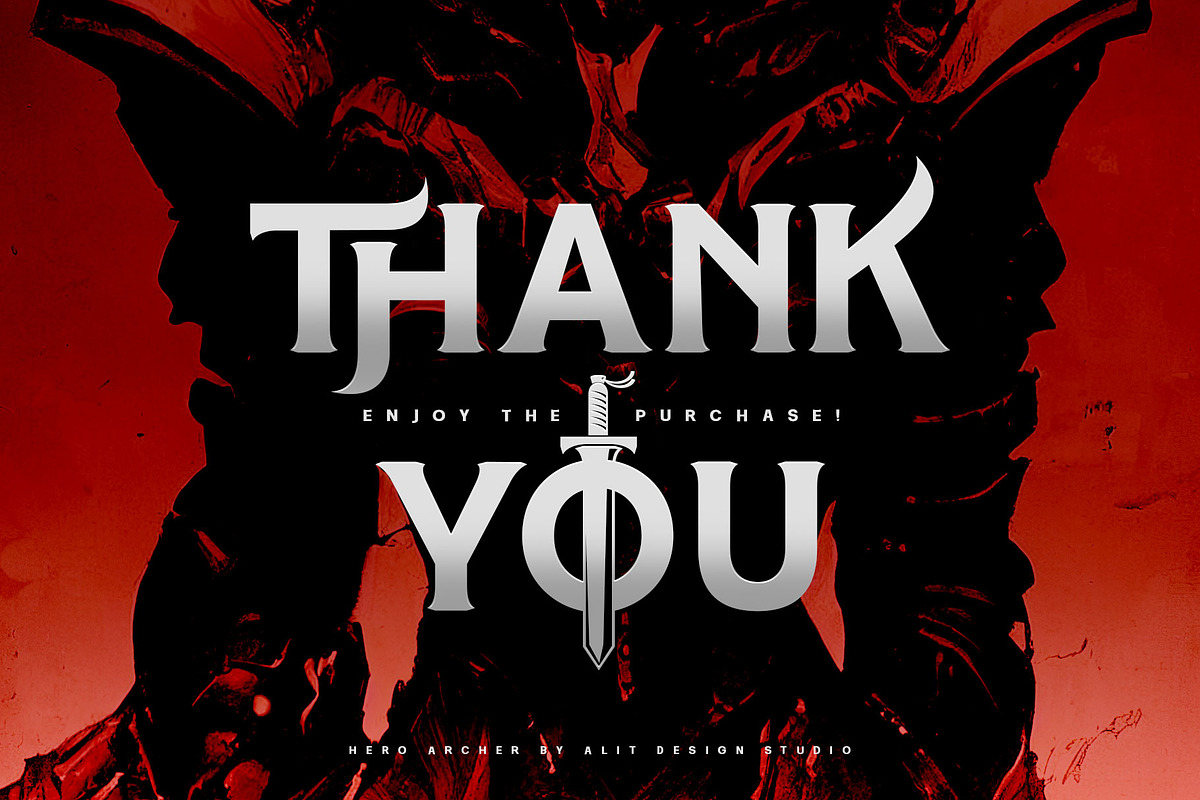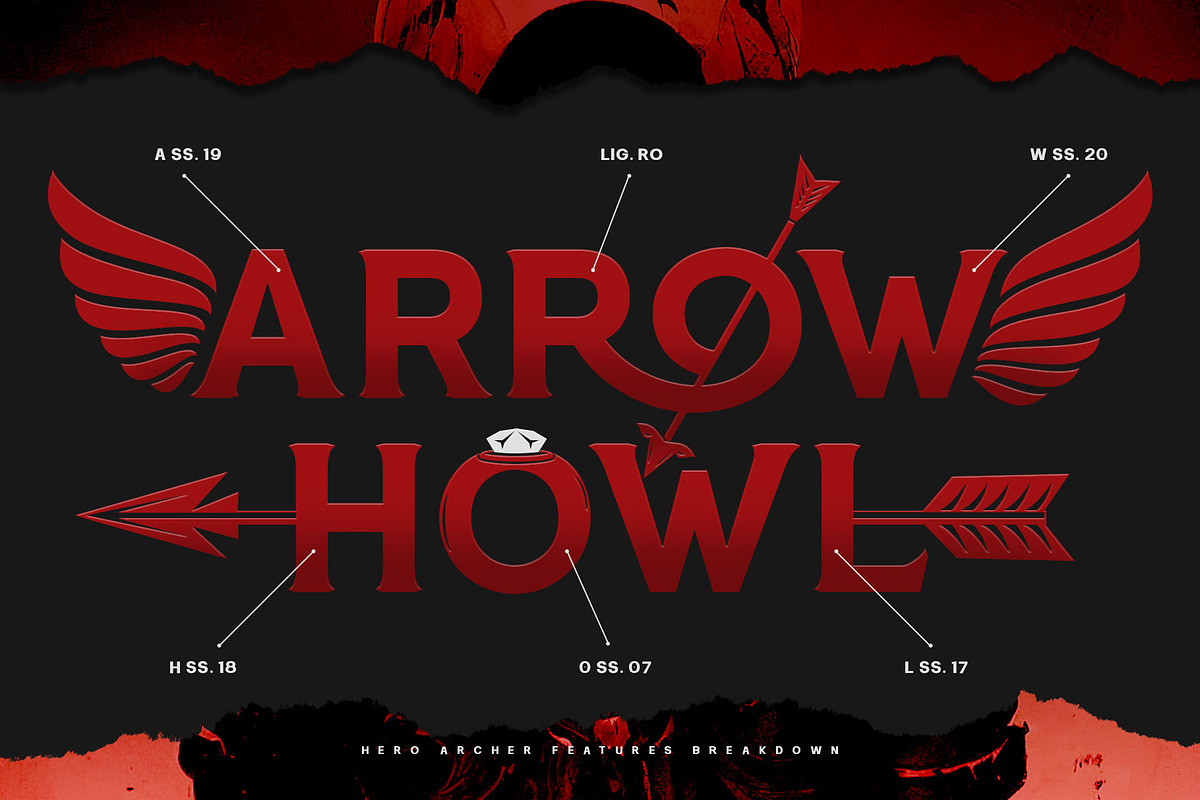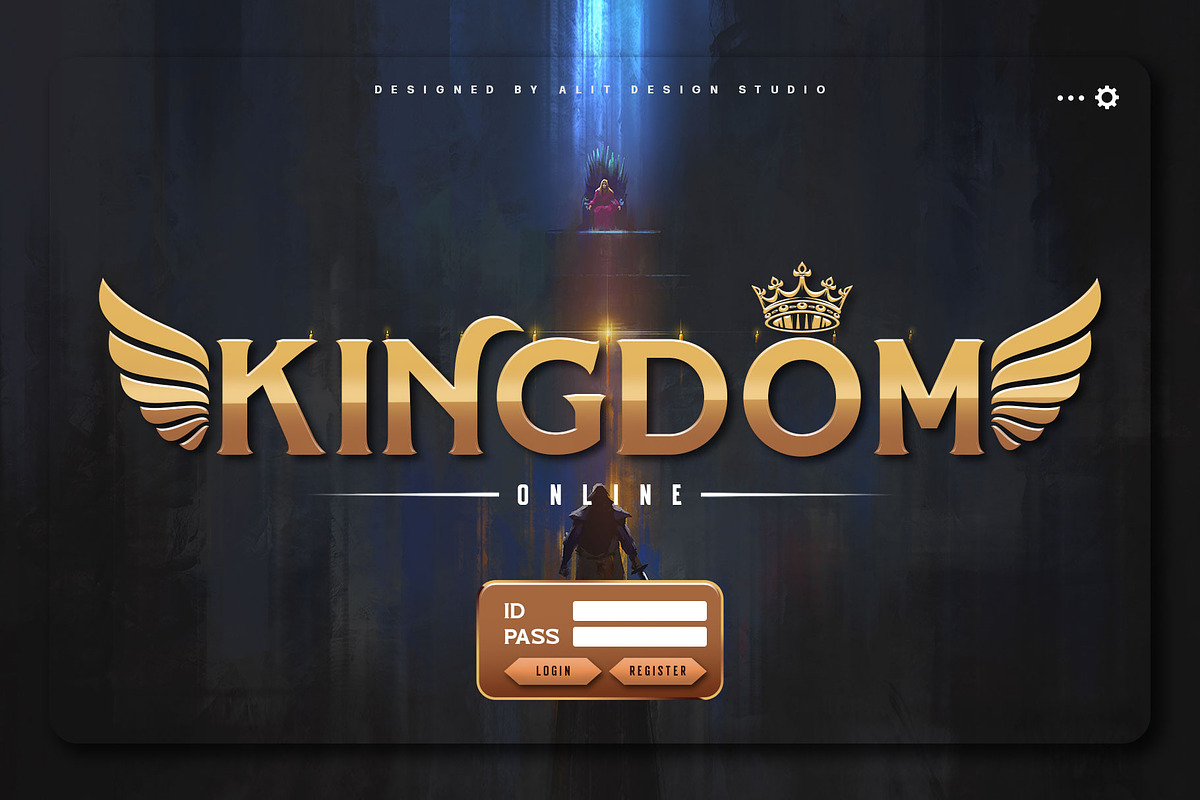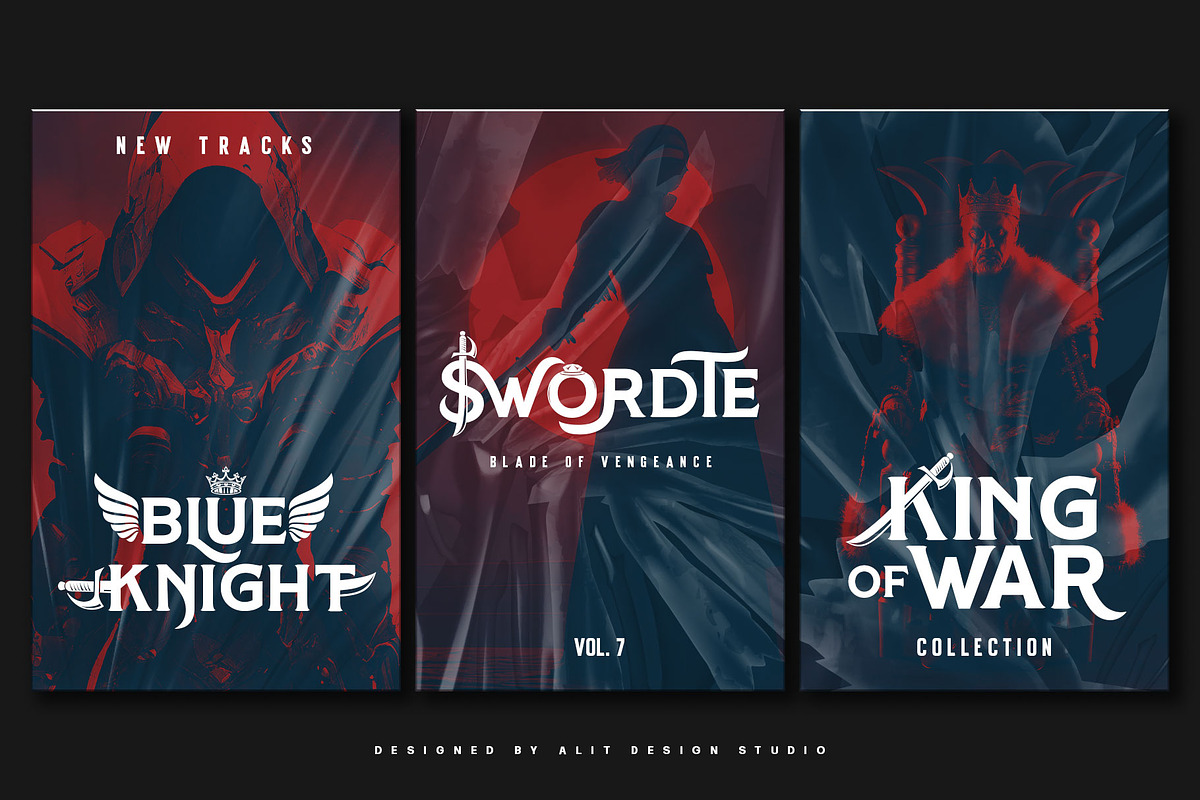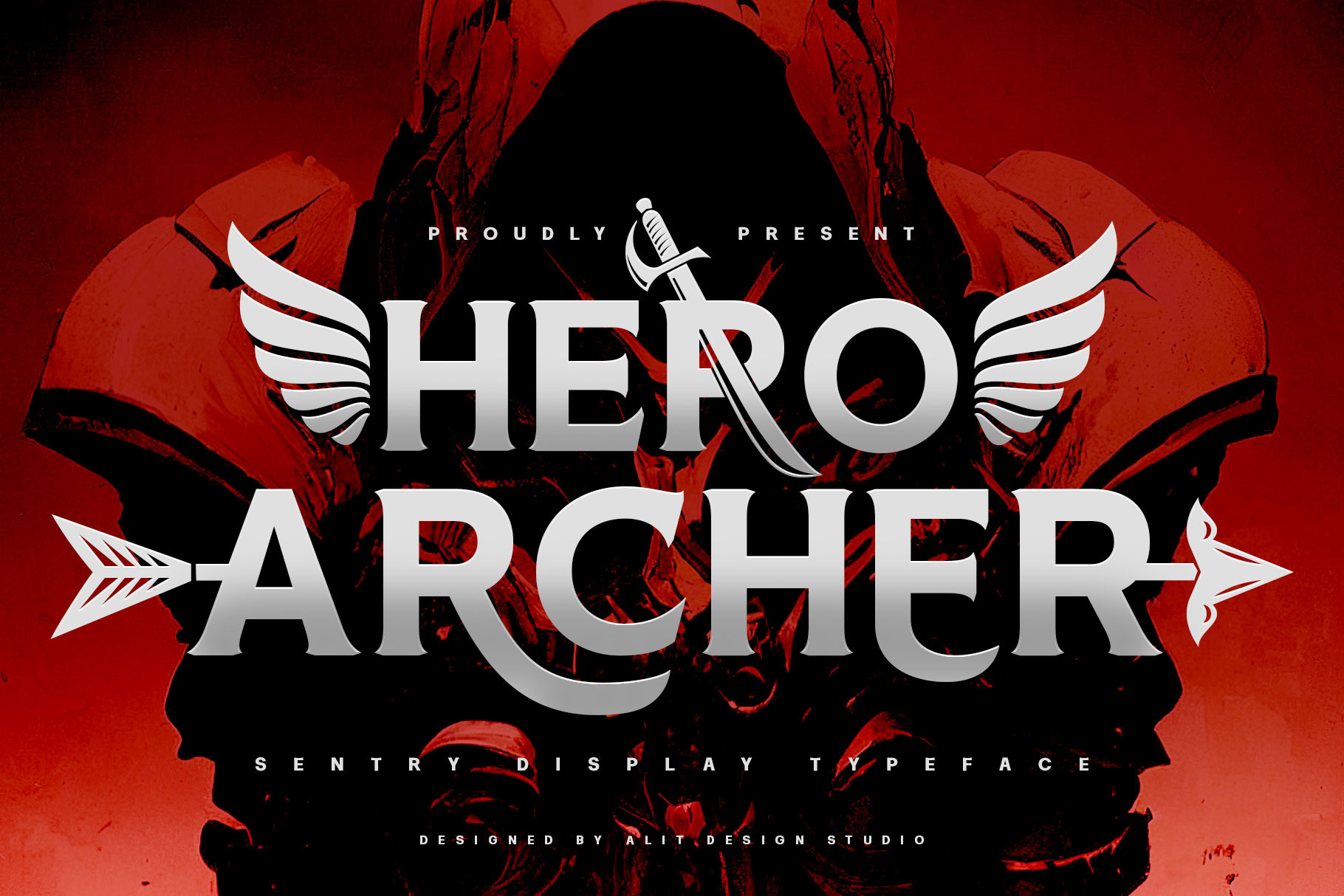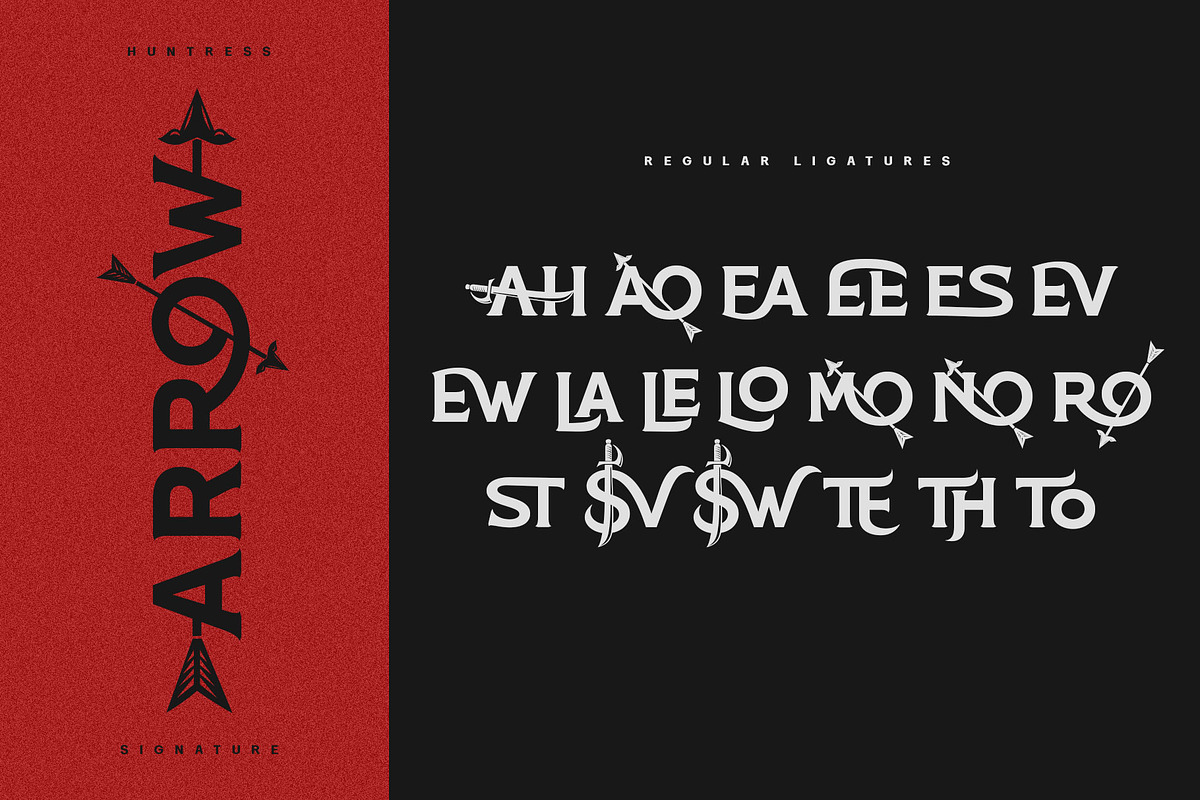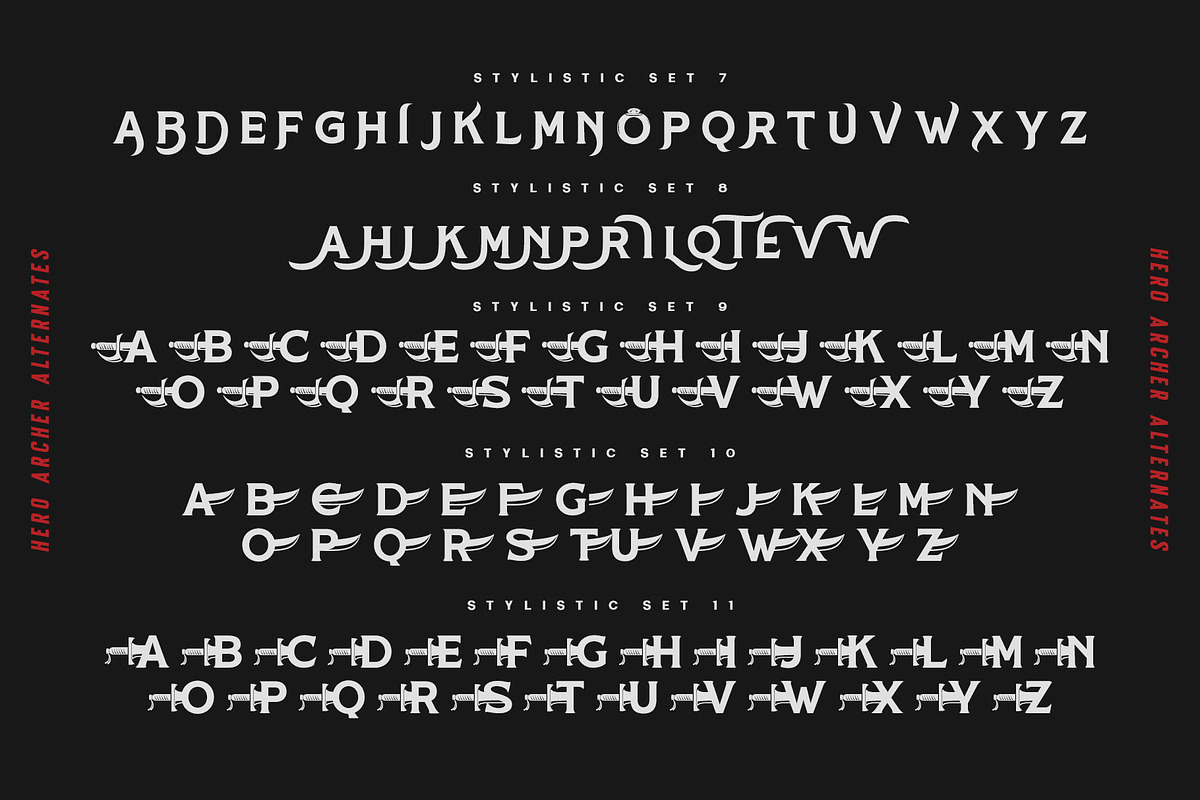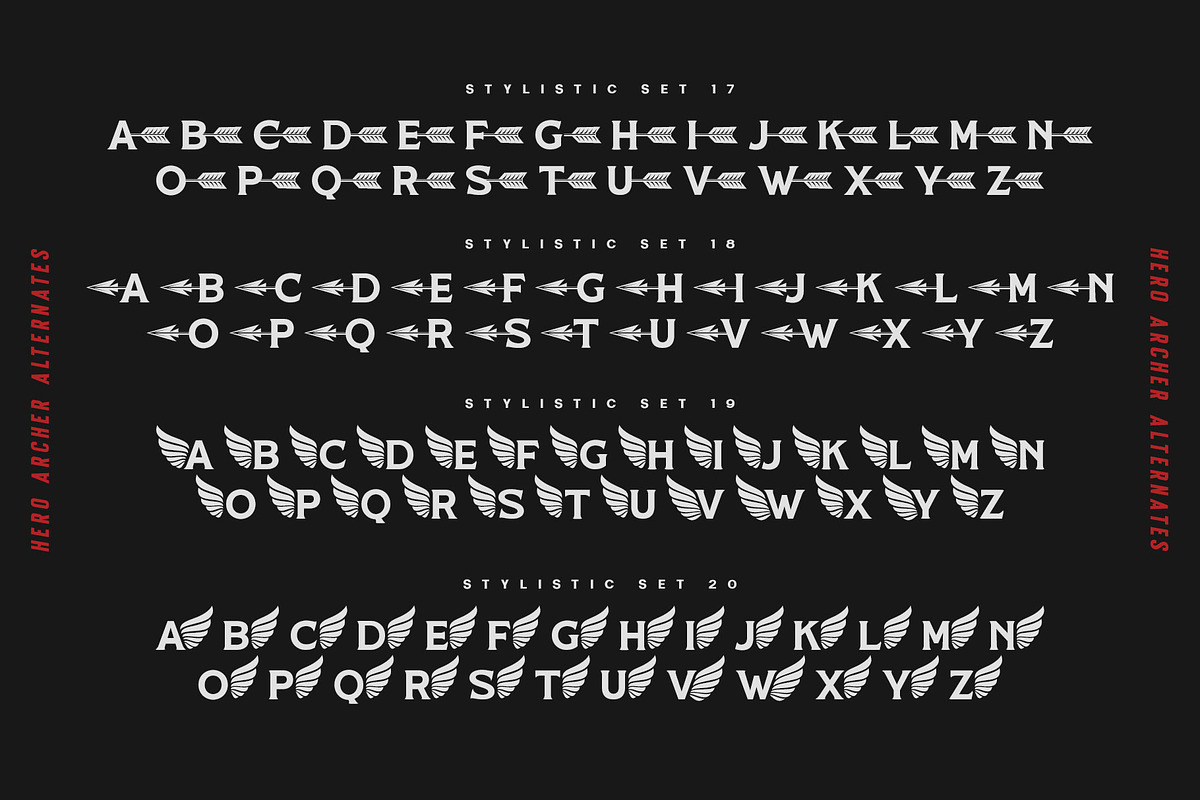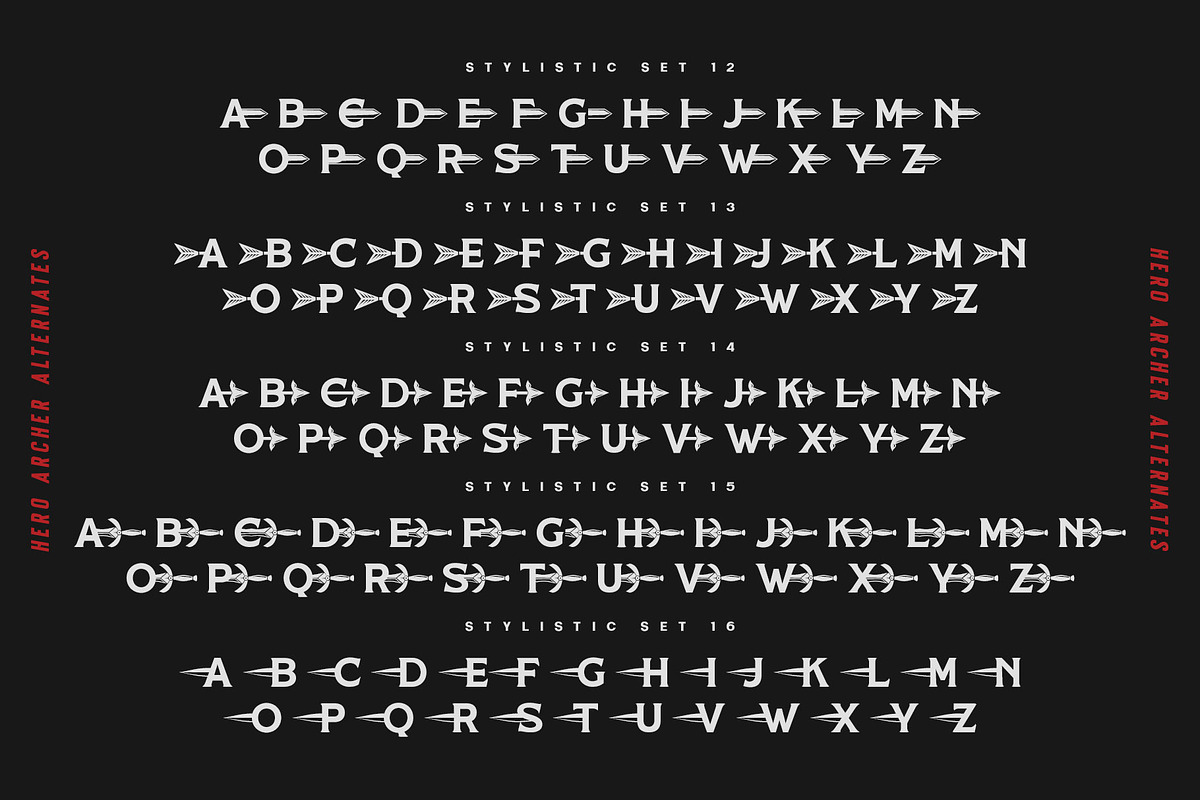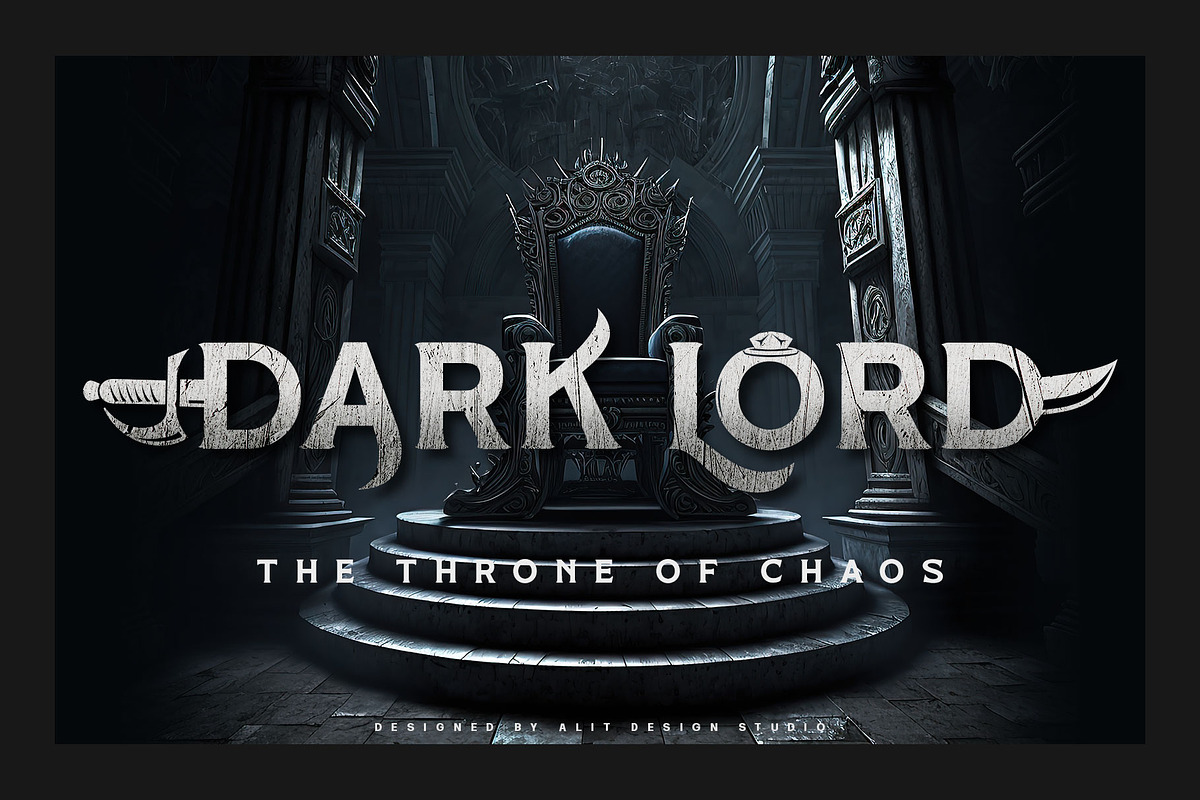
The Hero Archer Typeface
Presenting ⚔️The Hero Archer Typeface⚔️ by alitdesign.
The Hero Archer Typeface is inspired by action movie posters with the theme of war or knights in the night knight. The bold character of The Hero Archer Typeface is perfect for making hero movie titles, game titles, logotypes, halloween theme, t-shirt designs and so on with heroic themes.
The Hero Archer Typeface has alternatives that you can combine between swashes and symbols that have the theme of heroes and war. Besides that this font is very easy to use both in design and non-design programs because everything changes and glyphs are supported by Unicode (PUA).
The Hero Archer Typeface has a total of 1012 glyphs including symbol, multilingual.
Language Support : Latin, Basic, Western European, Central European, South European,Vietnamese.